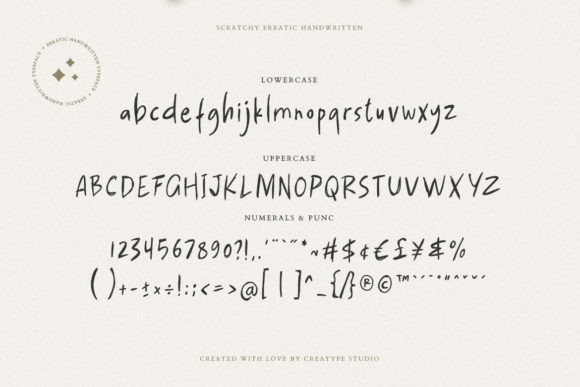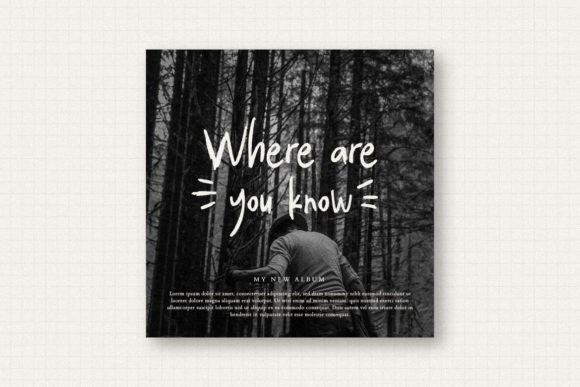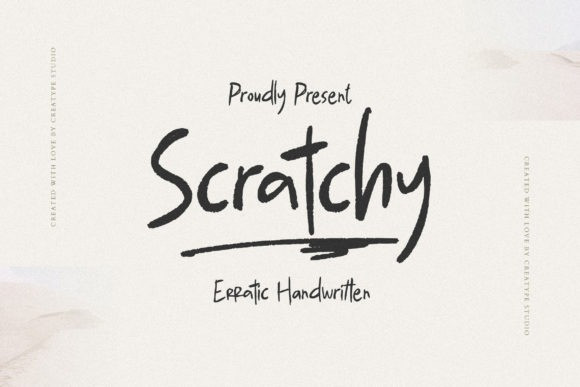
Scratchy Font
Scratchy Font is a cool, vintage styled display font. No matter the topic, this font will be an incredibly asset to your fonts’ library, as it has the potential to elevate any creation.